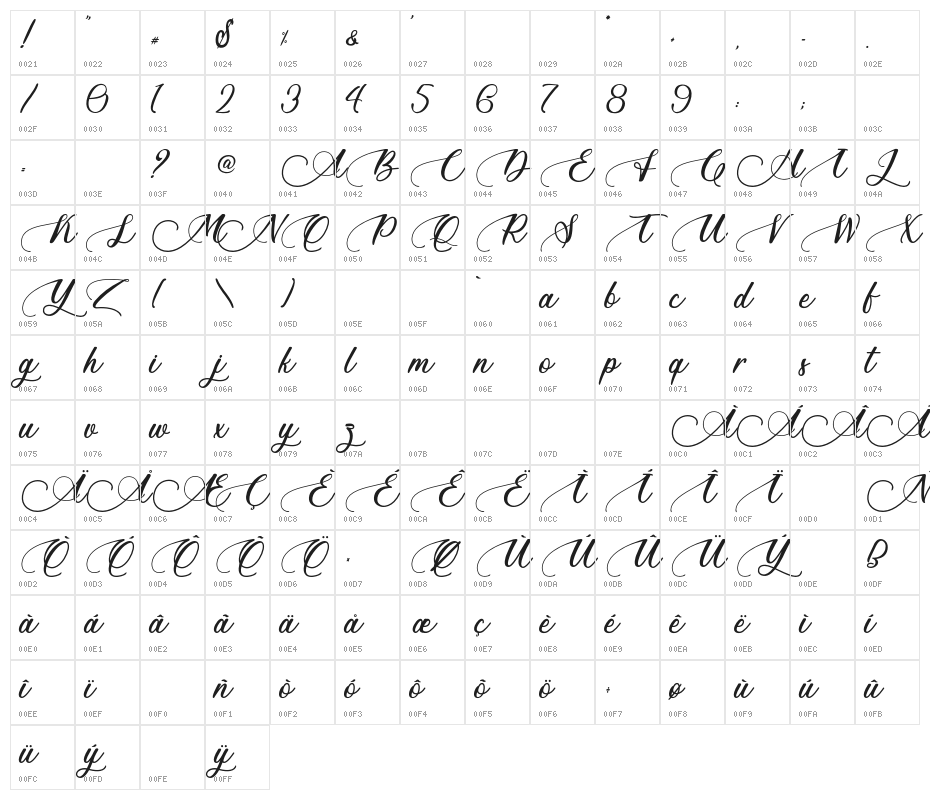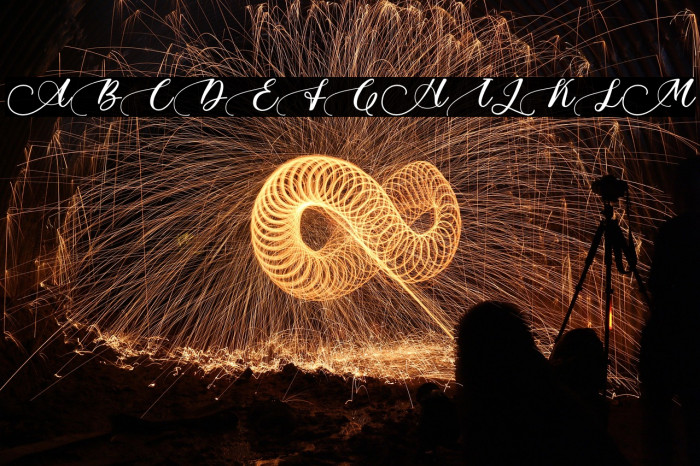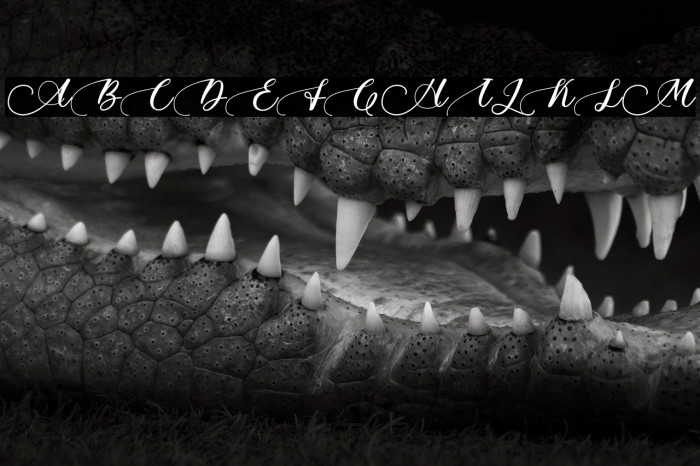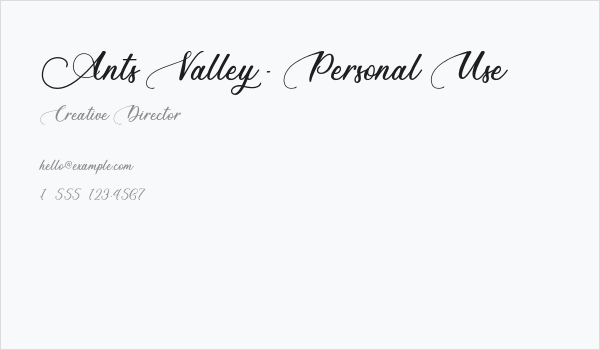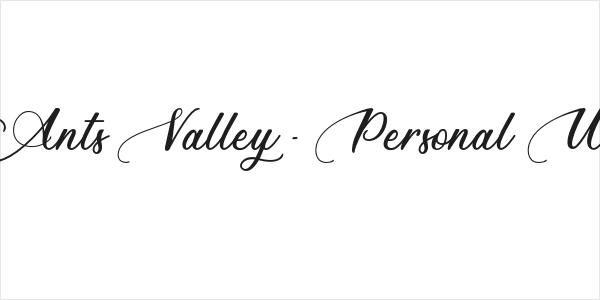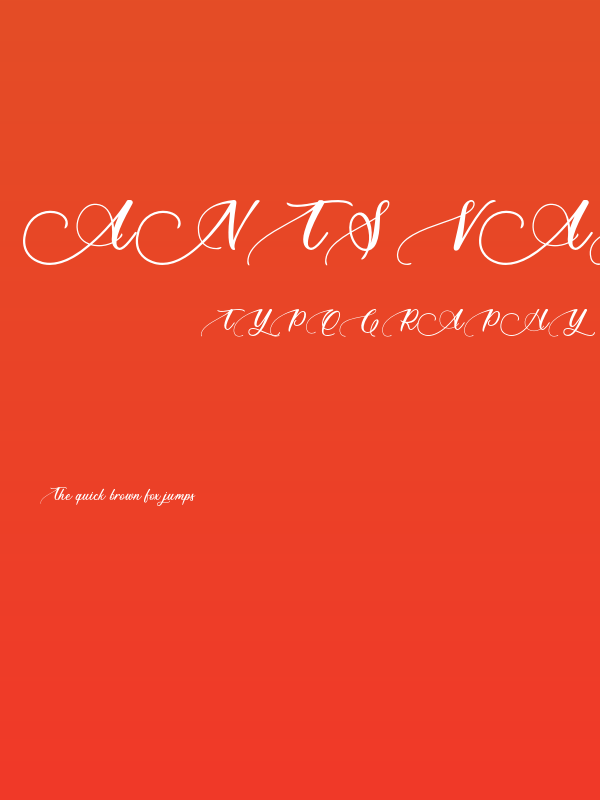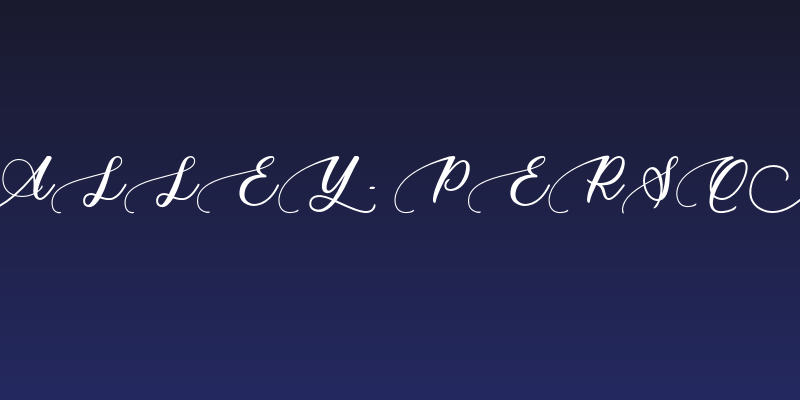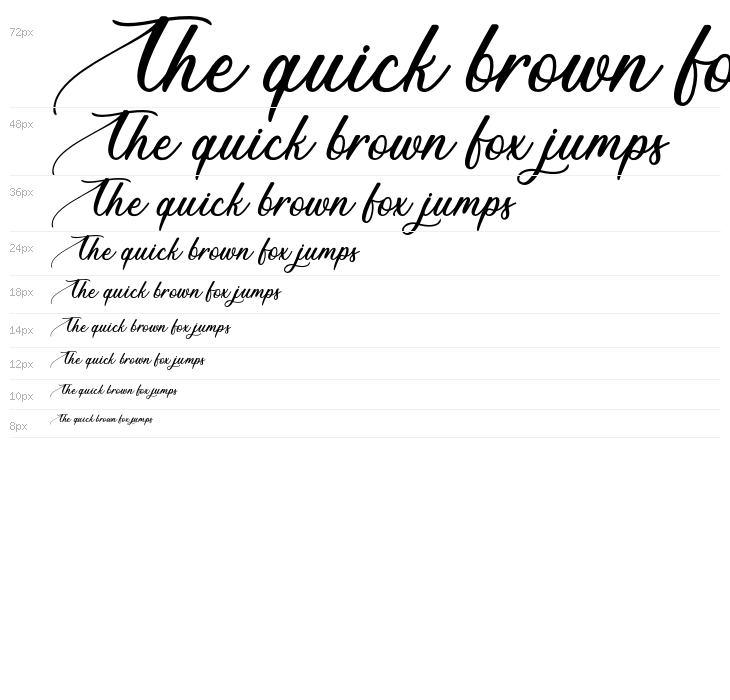
Ants Valley - Personal Use Font
Ants Valley - Personal Use Description
This font features an elegant and flowing script style, characterized by its intricate and decorative swashes. The uppercase letters are particularly ornate, with elaborate loops and flourishes that give a sense of sophistication and grace. The lowercase letters maintain a consistent flow, with smooth curves and a slightly slanted orientation, enhancing the overall fluidity of the design. The numerals are styled to match the script's elegance, with subtle curves and a balanced appearance. Special characters are thoughtfully integrated, maintaining the font's cohesive aesthetic. This font is ideal for projects that require a touch of elegance and refinement.
| Use Case | Logos, Invitations, Decorative Text |
| Proposed Projects | Wedding invitations, luxury branding, elegant packaging, greeting cards, and high-end product labels. |